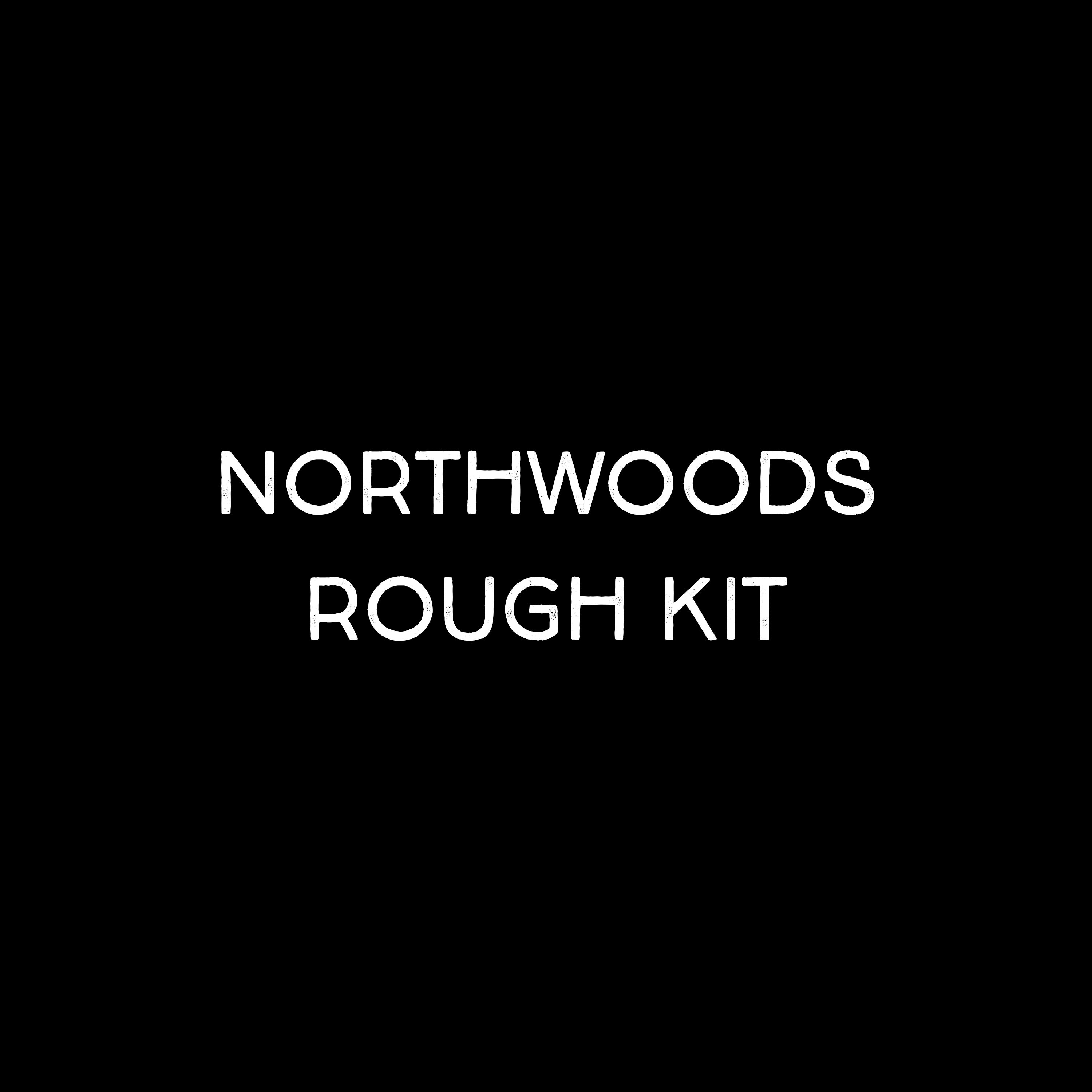
NORTHWOODS ROUGH FONT KIT includes 2 fonts.
Northwoods Rough Fonts are handwritten, sans serif headline fonts with capital and lowercase letters. Northwoods Rough comes with latin pro characters.
Use Northwoods Rough for packaging, magazines, layouts, web design, corporate identity and marketing.
Northwoods Rough Font Kit